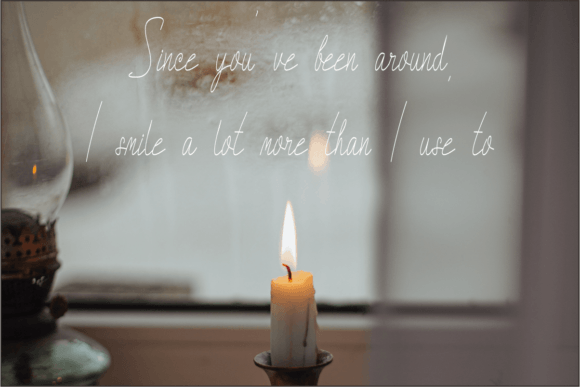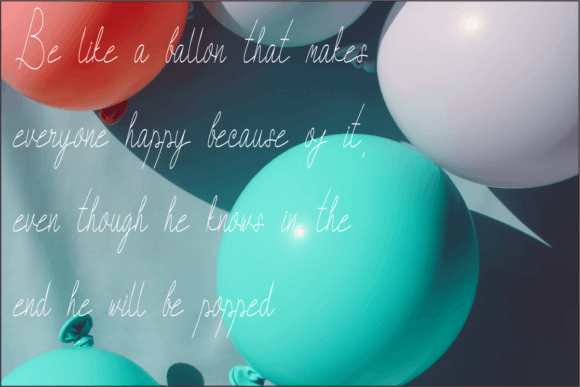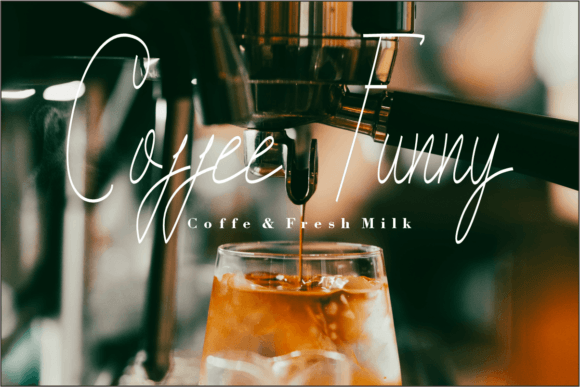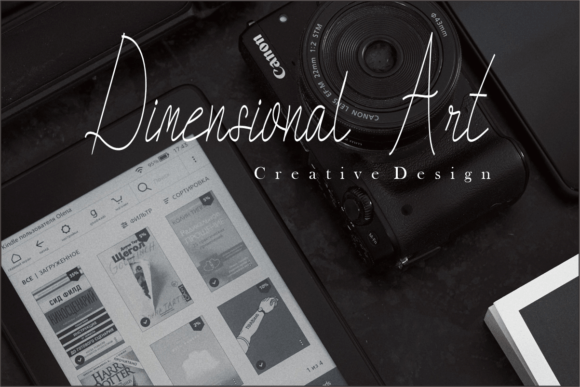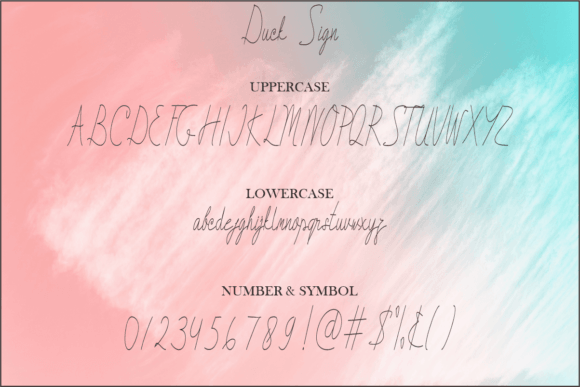
The Perfect Touch: Unleashing the Magic of Duck Sign Font
Have you ever found yourself scribbling down ideas in a notebook, only to realize that your handwritten notes are more beautiful than you initially thought? This is exactly what inspired the creation of the Duck Sign Font – a flowing handwritten font that adds an elegant touch to any project.
Designed to be totally different yet timeless, Duck Sign Font is the perfect choice for designers looking to create spectacular designs. With its varied bases, smooth lines, gorgeous glyphs, and stunning alternatives, this font is a treasure trove of creative possibilities. Whether you’re a seasoned pro or just starting out, Duck Sign Font is an invaluable asset to have in your design toolkit.
- Unique Characteristics: Distinctive, whimsical design with a playful feel, making it ideal for creative and informal applications
Duck Sign Font Review
Overall, I think the Duck Sign Font is a cute and playful font that can be perfect for specific use cases. Here are some things that work well:
- ✨ Unique design: The font’s quirky, hand-drawn feel can add a lot of character to your designs.
- ✨ Easy to read: Despite its playful nature, the font is still legible and easy to read, even at smaller sizes.
- ✨ Versatile: The font comes in a variety of weights and styles, making it suitable for a range of design projects.
- ⚠️ Limited professionalism: The font’s playful, hand-drawn feel may not be suitable for more formal or professional projects.
- ⚠️ Limited scalability: While the font is easy to read at smaller sizes, it may not scale well to larger sizes, losing some of its unique character.
- ⚠️ Limited character set: The font may not include a full character set, which could limit its use in certain languages or contexts.
Overall, I think the Duck Sign Font is a great choice for projects that require a playful, whimsical feel. Just be sure to consider its limitations before using it in your designs.
The Duck Sign Font is perfect for:
Children’s party invitations and decorations
Playful logos and branding
Whimsical social media graphics
Any design that requires a lighthearted and playful touch